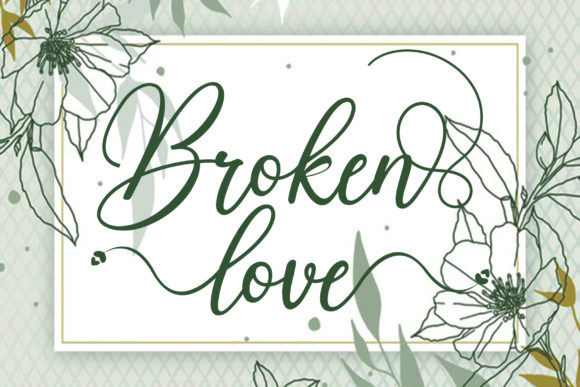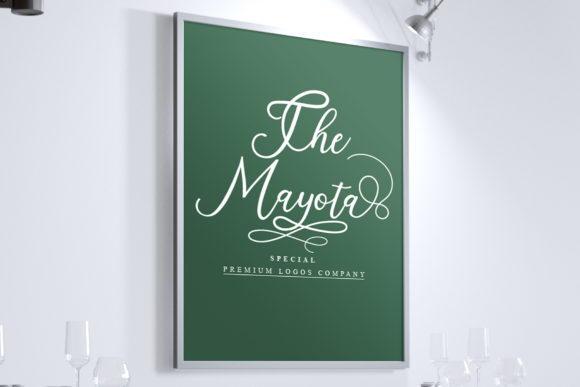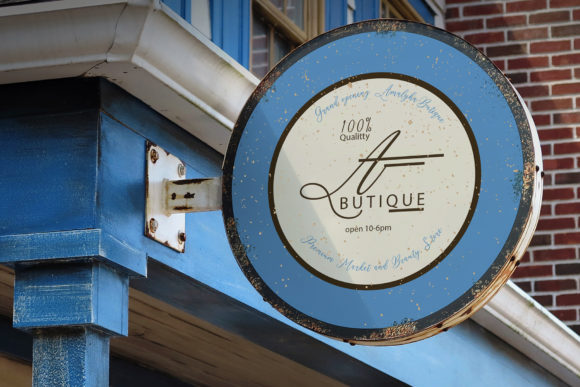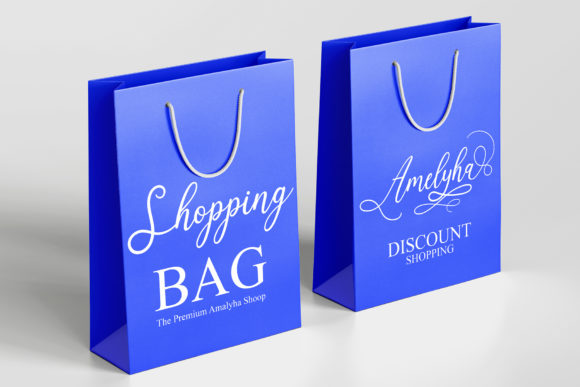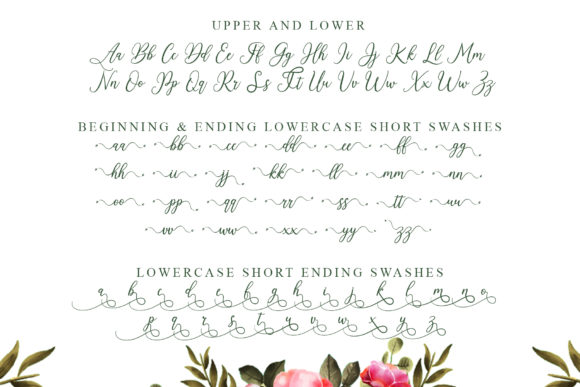
The Art of Elegant Design: Discovering the Amelyha Font
As a designer, there’s nothing quite like the thrill of creating something beautiful from scratch. It’s that moment when the perfect font, the ideal color palette, and the subtlest of flourishes come together to transport your audience to a world of wonder. For many of us, it’s the font that sets the tone for the entire design, and when it’s just right, it’s pure magic.
Enter the Amelyha Font, a stunning script font that brings a touch of elegance and sophistication to any design. Whether it’s a wedding invitation, a heartfelt thank you note, or a company logo, Amelyha Font is the perfect choice for adding a handwritten touch that speaks directly to the heart. With its PUA encoding, designers can access all the glyphs and swashes with ease, making it a valuable asset for any creative project.
Key Features of Amelyha Font
- Unique Characteristics: Elegant, cursive script with a touch of sophistication and playfulness, suitable for creative and formal applications.
- Language Support: Multilingual support for most Latin-based languages, including English, Spanish, French, German, Italian, and many more.
- Font Style: Script, Casual, and Formal variations to suit different design needs.
Amelyha Font Review
I recently had the chance to dive into the Amelyha font, and I’m here to share my honest thoughts.
- The Amelyha font has a unique, elegant feel to it. The subtle flourishes and curves give it a high-end look that’s perfect for luxury brands or sophisticated designs.
- The font is highly legible, making it easy to read even at smaller sizes. This is especially important for body text or headings that need to be clear and concise.
- The Amelyha font also has a wide range of weights and styles, from light to bold, which gives designers a lot of flexibility when creating their designs.
- The Amelyha font may not be the best choice for fast-paced or energetic designs. Its elegant feel can make it feel a bit stuffy or formal, which may not be suitable for every project.
- The font’s unique flourishes can also make it feel a bit overwhelming if used too liberally. It’s best to use it sparingly to create a sense of sophistication and elegance.
Overall, I think the Amelyha font is a solid choice for designers who need a high-end, elegant font for their projects. While it may have some limitations, its unique feel and high legibility make it a great option for the right kind of design.
The Amelyha font is commonly used for:
- Headings and titles.
- Branding and logos.
- Marketing materials and advertising.
Lato is a modern, sans-serif font that’s perfect for creating a clean and elegant design. It’s ideal for branding, logos, and other designs where you want to add a touch of sophistication and modernity. Lato is similar to Amelyha Font in its clean and elegant style, but has a more modern and versatile feel.
Can I customize Amelyha Font?
Yes, Amelyha Font is fully editable in design software that supports OpenType and TrueType fonts, such as Adobe Illustrator and Photoshop. You can also customize the font using font editing software like FontLab.
Does Amelyha Font support Unicode characters?
Yes, Amelyha Font supports a wide range of Unicode characters, including Latin, Cyrillic, and Greek alphabets. This means you can use Amelyha Font to typeset text in multiple languages, including English, Spanish, French, Russian, and Greek.